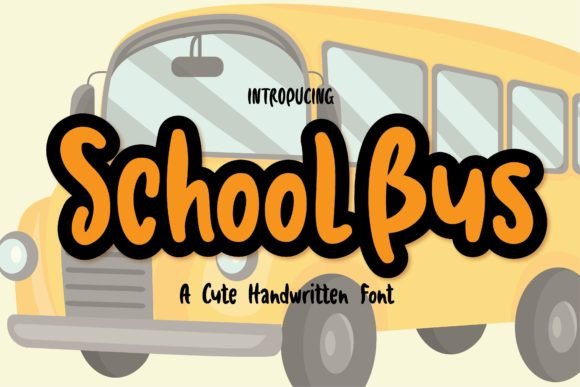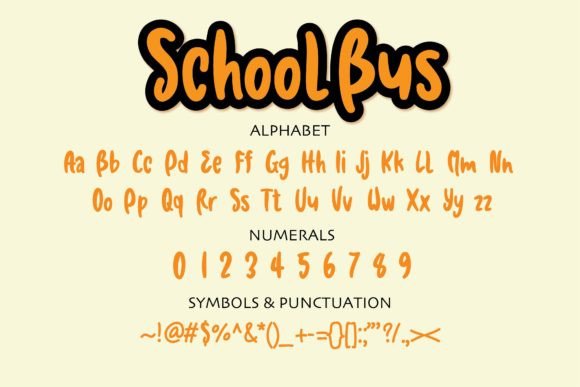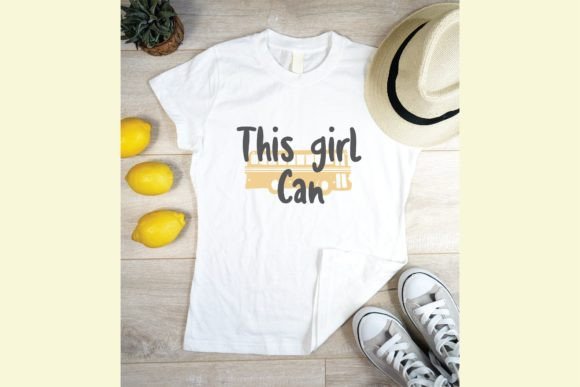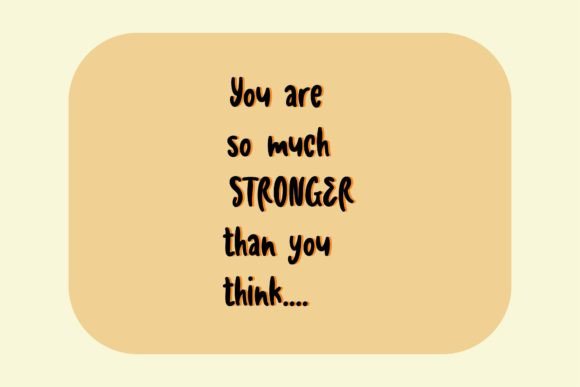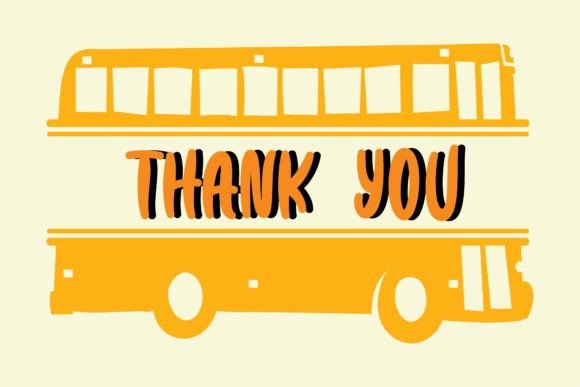
Schoolbus Font
About Schoolbus Font
SchoolBus, a charming and flexible handwritten font, exudes cuteness and versatility. With its natural and unique style, this font proves to be an ideal choice for a wide array of designs. Embrace the playful essence of SchoolBus and enjoy exploring its endless variations. This beautiful font is not only fun but also exceptionally fitting for diverse applications, including wedding invitations, thank you cards, quotes, greeting cards, logos, business cards, and any design that benefits from a delightful handwritten touch.
The innate charm of SchoolBus lies in its ability to bring a sense of warmth and personality to your projects. Whether you’re creating wedding invitations that demand a touch of whimsy or crafting business cards that stand out with a friendly vibe, SchoolBus adapts seamlessly to various design contexts.
Its handwritten aesthetic makes SchoolBus perfect for conveying sincerity and authenticity in thank you cards or quotes. The font’s playful yet legible style ensures that your messages are not only visually appealing but also easily understood.
The versatility of SchoolBus shines through in logo designs, where its unique flair can enhance brand identity with a distinctive and memorable touch. Additionally, its adaptability makes it suitable for a broad range of creative projects, allowing you to explore different variations and create a customized look that aligns with your vision.
In essence, SchoolBus is more than just a font; it’s a creative companion that adds a touch of joy and character to your designs. Whether you’re working on digital or print materials, this font encourages a playful exploration of its various styles, promising to bring a delightful handwritten charm to every project it graces.